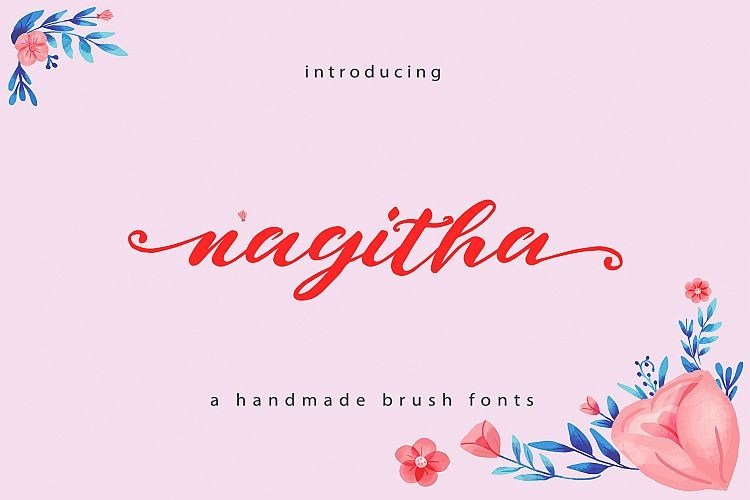
Naghita Brush Font
Naghita Brush Font is a handmade font style dance and then a life trail to have a Grungy brush and unique calligraphy form, a very natural and simple writing style. This font comes with 445 glyphs and will be an update to depend on according to your needs.